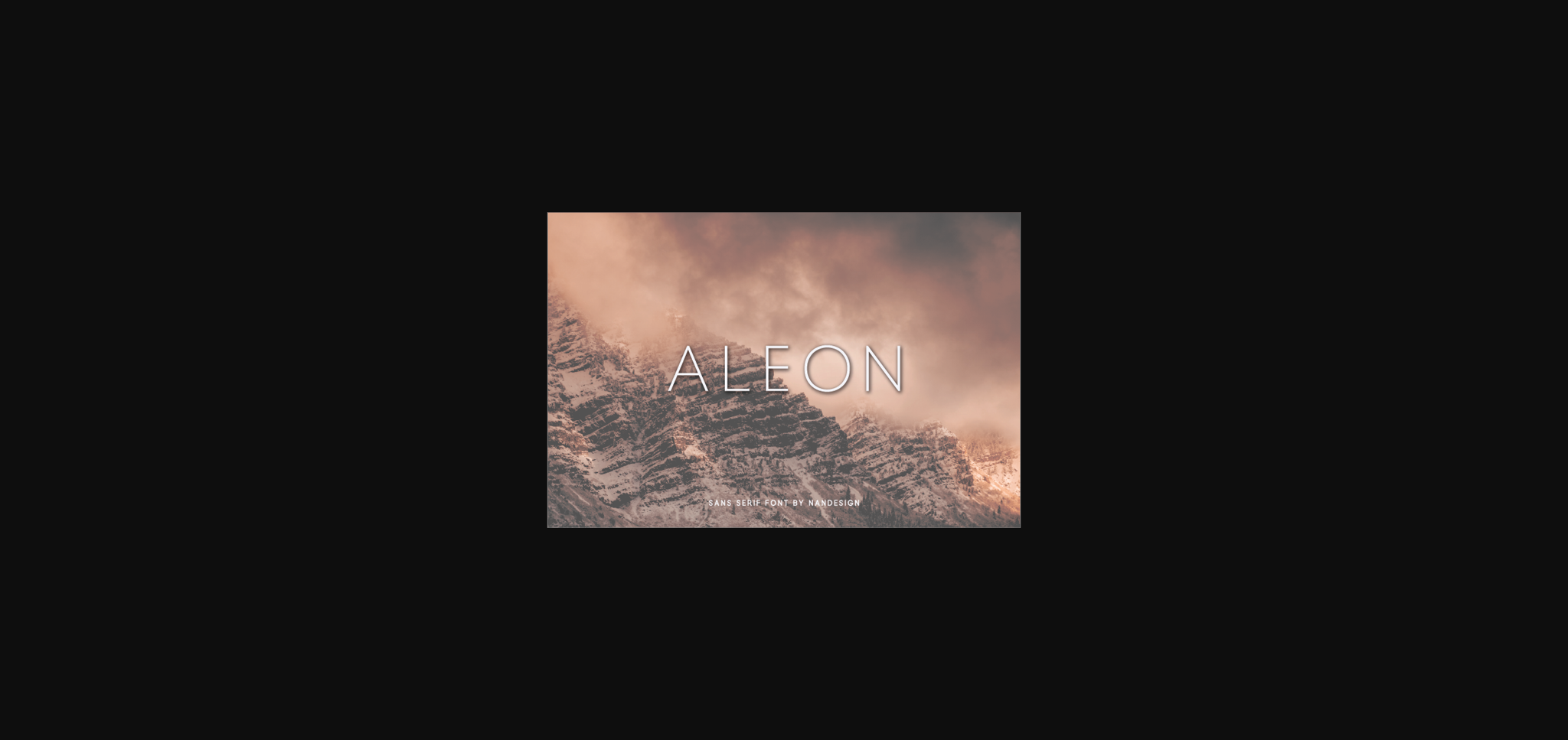
About Aleon Font
Aleon is a simple and authentic sans serif font created to complement every project you’re working on.
It is lovely for displays, headers, invitations, save the dates, weddings, and so much more!